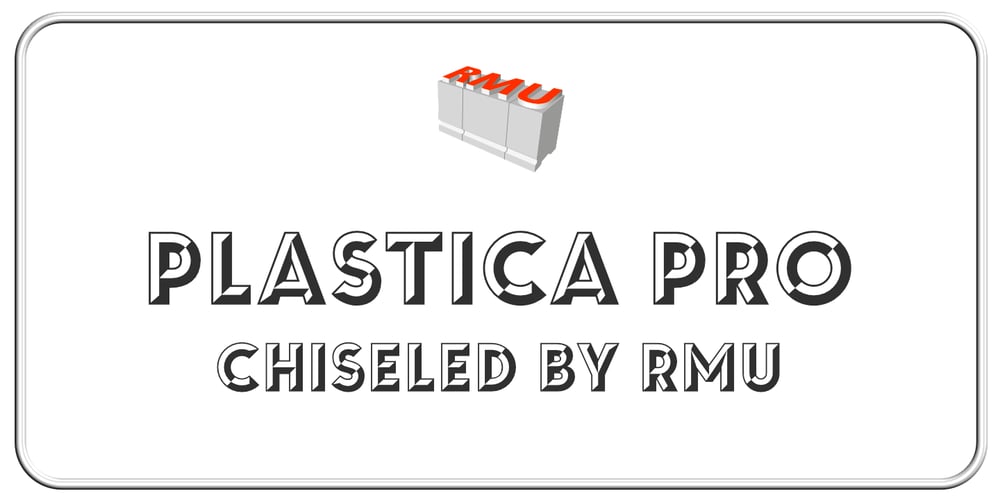
Plastica Pro Font Family was designed by Ralph M. Unger and published by RMU. Plastica Pro contains 2 styles and family package options. Plastica Pro, inspired by a J. Lehmann design, is an ideal plastic font for posters, logos, corporate identity, headlines, booktitles, car and truck design etc. The Plus style includes Cyrillic and Greek glyphs.